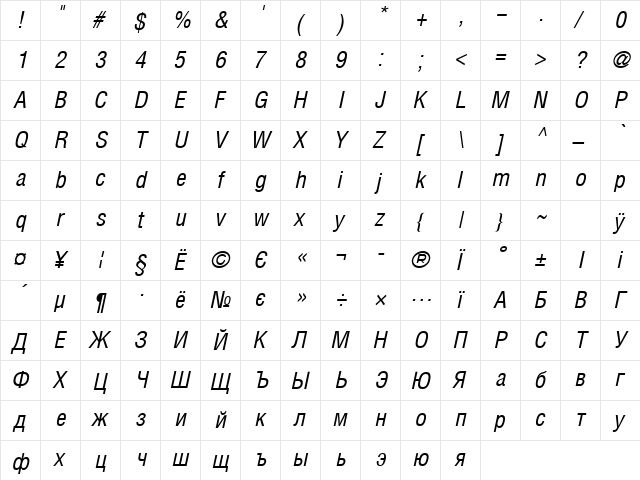
HeliosCond Italic
Design Context for HeliosCond Typeface
HeliosCond is a composed and adaptable typeface that performs quietly and consistently across a wide range of design contexts. The slanted form adds forward momentum and visual energy. The condensed width makes it efficient for tight spaces without sacrificing legibility.
Pro Tip: Try HeliosCond for annotation and caption copy alongside an upright companion — the contrast in angle creates a dynamic but ordered typographic system.